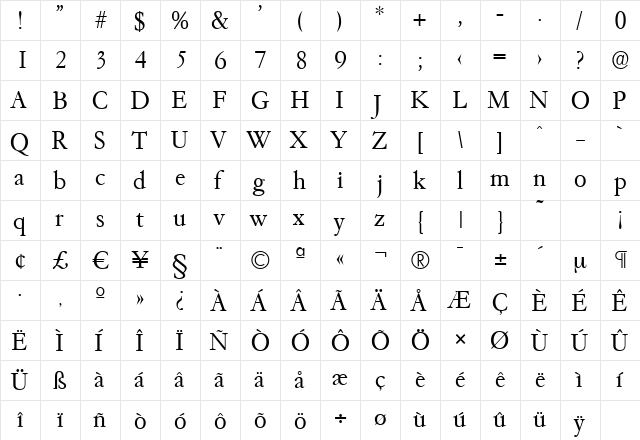
GarfeldSerial-Light Regular
Design Context for GarfeldSerial-Light Typeface
GarfeldSerial-Light offers clean, dependable letterforms without strong stylistic allegiance, making it a practical choice for designers who need flexibility. Its slender proportions lend an understated elegance to any composition.